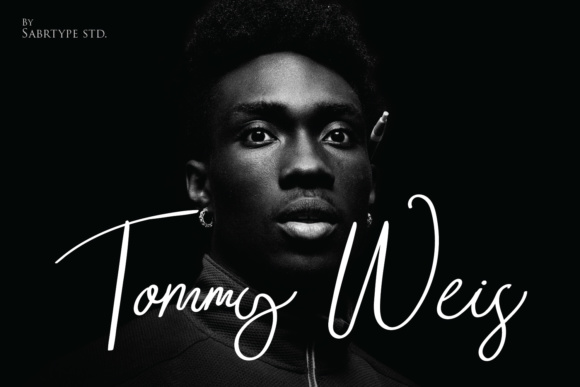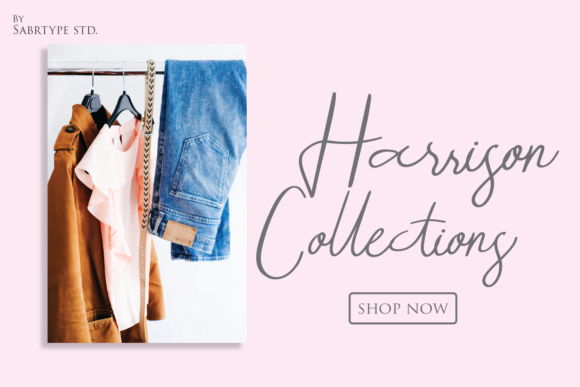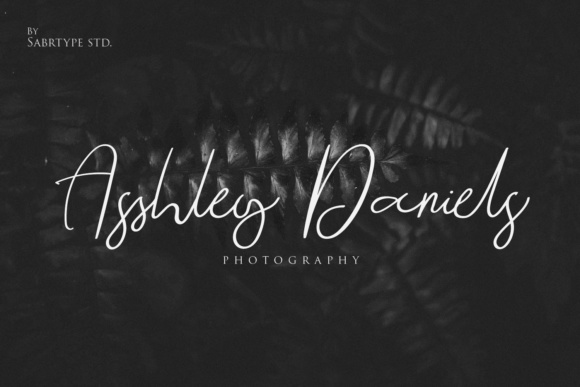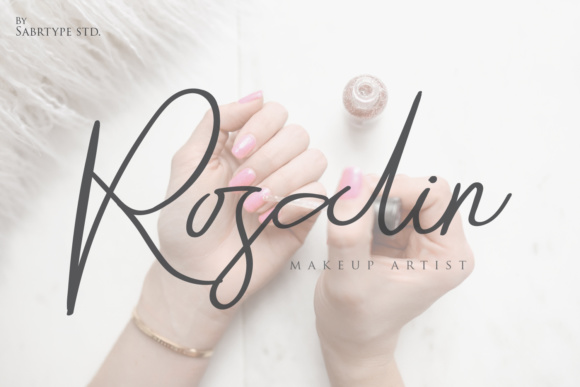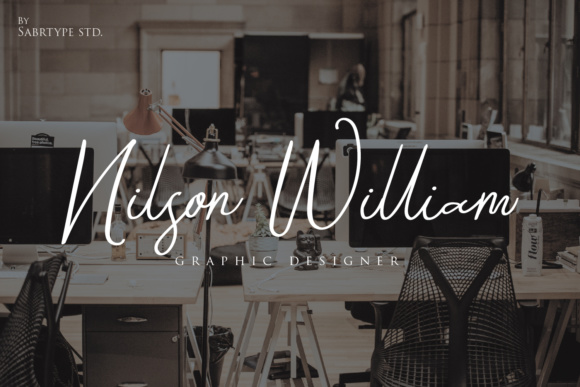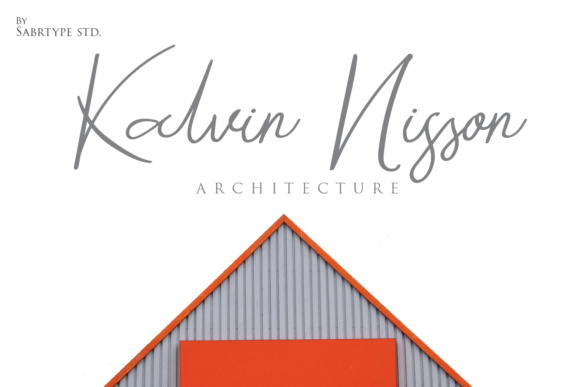
Introduction to Raliangi Font
Have you ever stared at a blank page, waiting for the perfect font to spark your next creative project? For designers, finding that elusive combination of style and versatility can be a game-changer. And that’s exactly what the Raliangi Font delivers – a modern script font that’s as elegant as it is functional.
Whether you’re crafting a signature, designing a logo, or creating a magazine cover, the Raliangi Font is the perfect design resource to elevate your work. Its high-quality design and transparent background make it a valuable addition to any designer’s toolkit. With its sleek, modern aesthetic, this font is sure to bring a touch of sophistication to any creative project. And the best part? It’s available for free download, making it an accessible and essential resource for designers of all levels.
Honest Review: Raliangi Font
I recently came across the Raliangi Font, a design resource that has caught my attention for its unique style and versatility. As a designer, I’m always on the lookout for high-quality fonts that can elevate my creative projects.
The Raliangi Font is a great addition to any designer’s toolkit, offering a range of styles and weights to suit various design needs. ✨ One of the standout features of this font is its transparent background, making it easy to use in a variety of design scenarios.
- High-quality design, perfect for creative projects that require a premium look
- Transparent background, allowing for easy customization and use in various design contexts
- ⚠️ Limited character set, which may not be suitable for complex text-based projects
- ⚠️ Not as widely supported as some other popular fonts, which may cause compatibility issues
Overall, I’m impressed with the Raliangi Font, and I think it’s a great addition to any designer’s collection. While it may have some limitations, its unique style and high-quality design make it a valuable resource for creative projects.
The Raliangi Font is a high-quality design resource ideal for creative projects. Its unique style and transparent background make it a versatile addition to any design.
Common use cases for the Raliangi Font include creating social media graphics, designing business cards, and creating presentations. You can also use the font to create custom text elements for your website or blog.